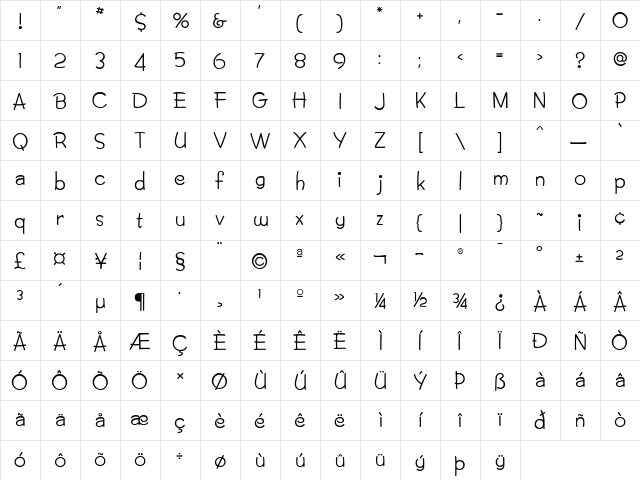
Tweed Md
Design Context for Tweed Typeface
Tweed takes a measured approach to typography — its balanced proportions and neutral character make it a reliable workhorse for both digital and print work.
Pro Tip: Use Tweed in both headline and body roles to test its range before committing to a single application.